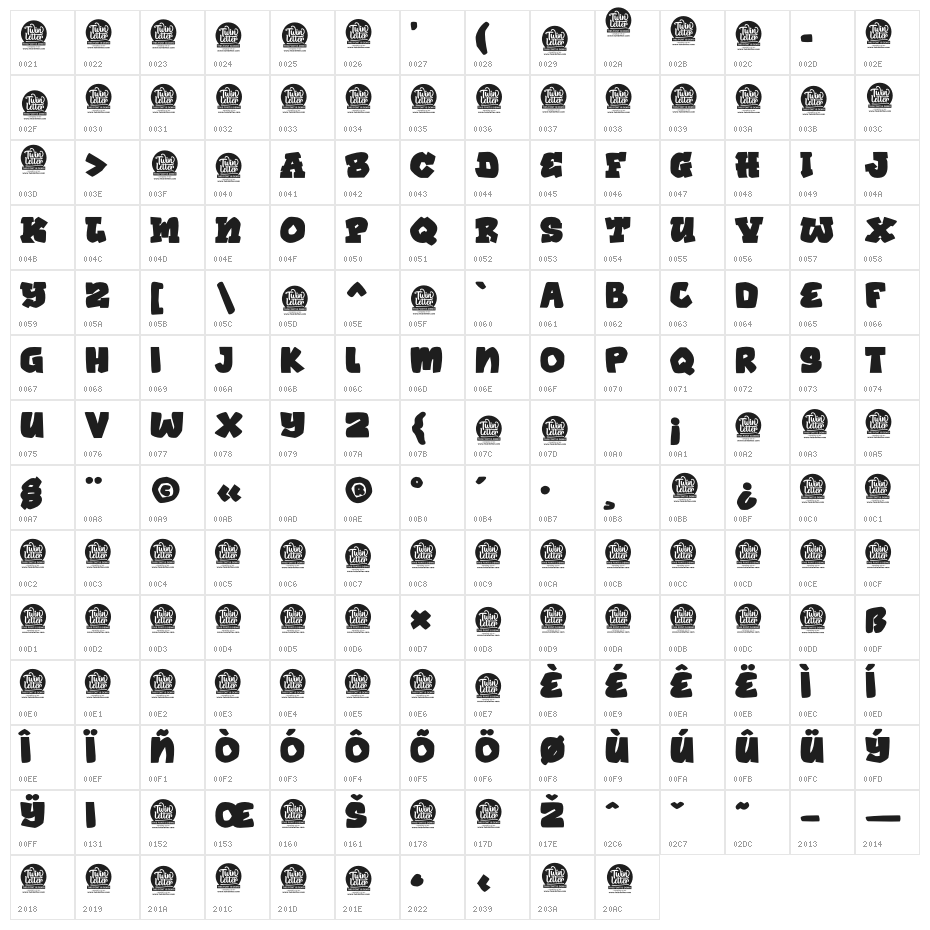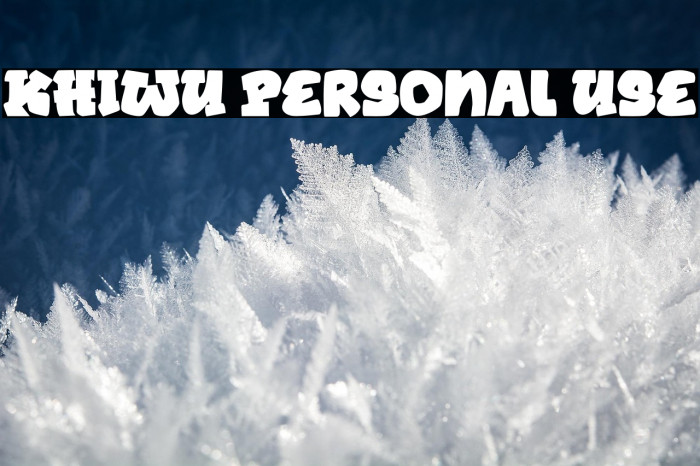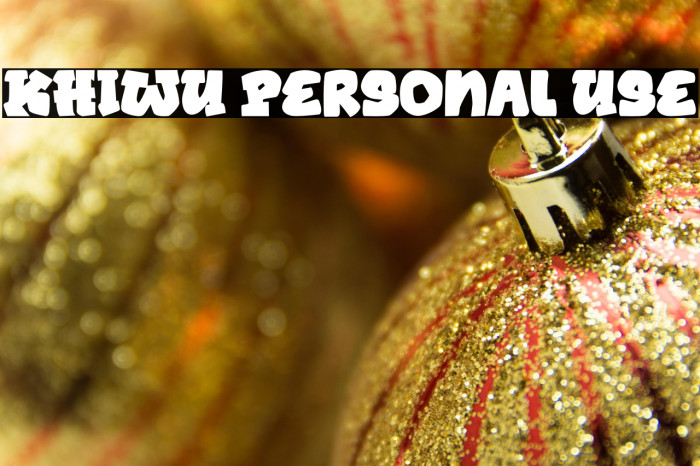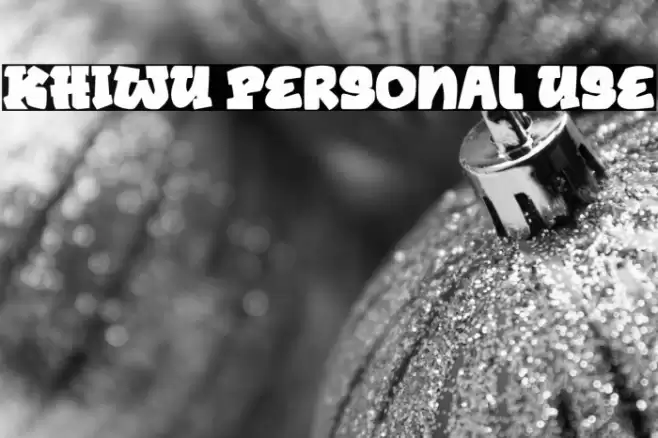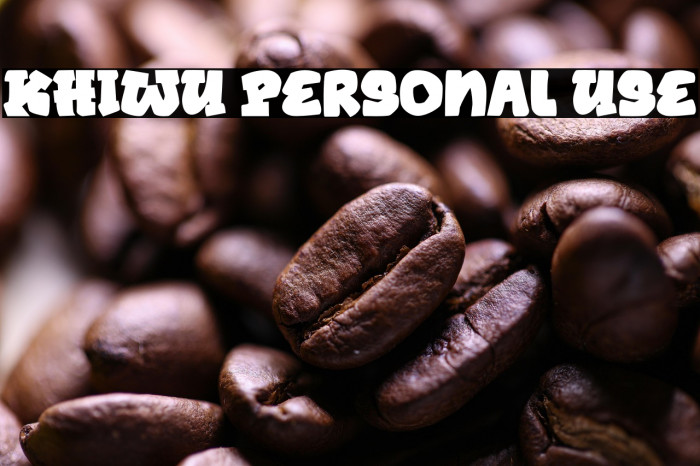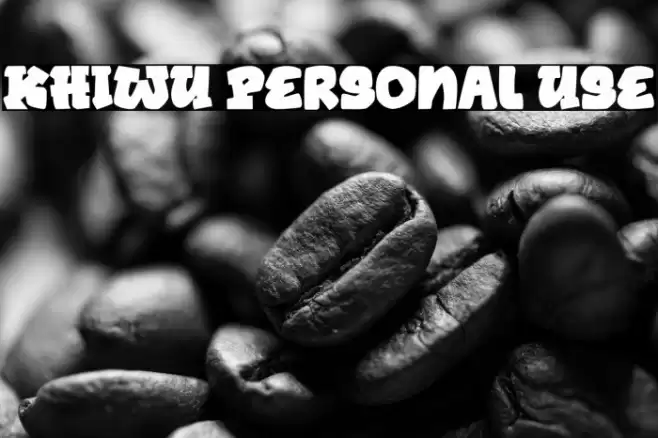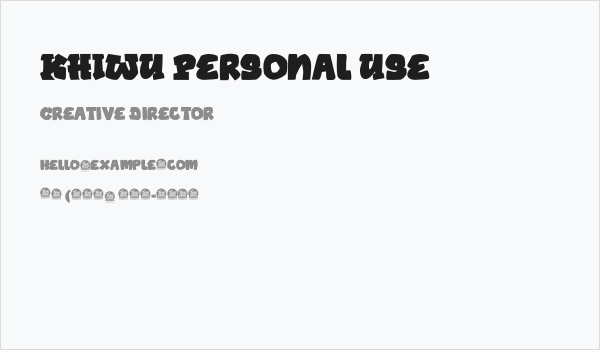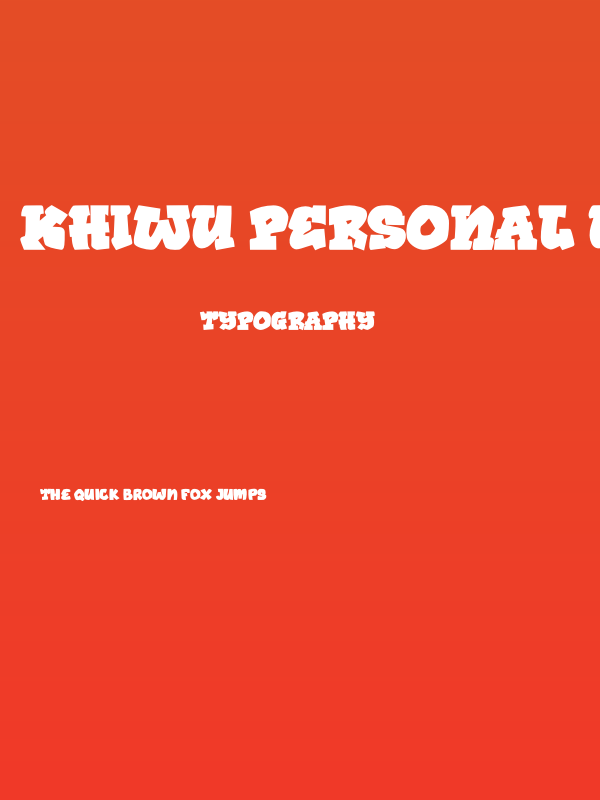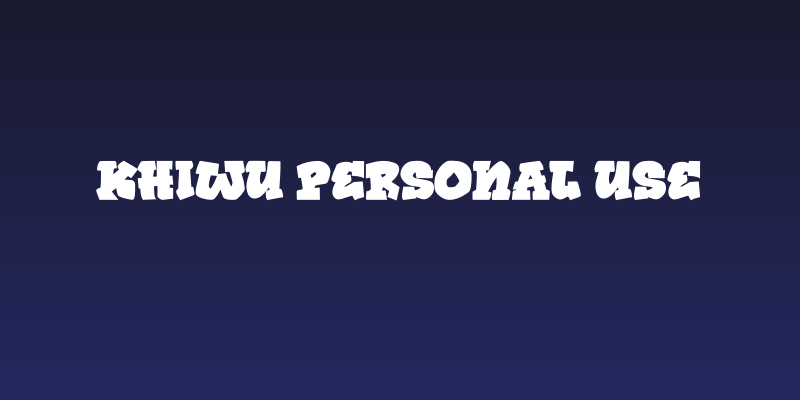
KHIWU Personal Use Font
KHIWU Personal Use Description
This font features bold, chunky characters with a playful and dynamic appearance. The letters are heavily stylized with exaggerated curves and angles, giving them a unique and eye-catching look. The uppercase and lowercase letters maintain a consistent style, with a strong emphasis on boldness and presence. The font's design is reminiscent of graffiti or street art, making it ideal for projects that require a fun and informal touch. The characters are tightly spaced, enhancing the font's compact and impactful nature. The overall style is decorative and modern, suitable for creative and expressive designs.
| Use Case | Logos, Posters, Creative projects |
| Proposed Projects | Ideal for posters, logos, and branding projects that require a bold and playful aesthetic. |